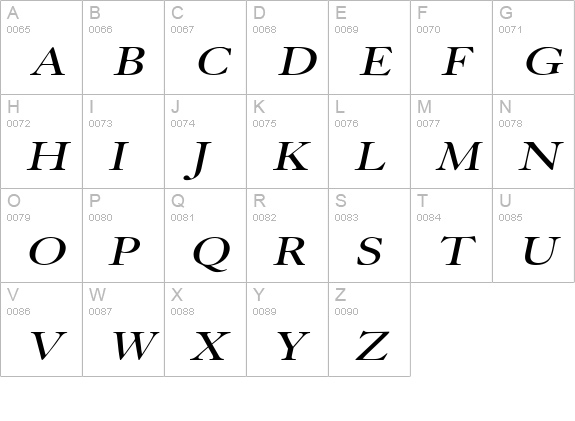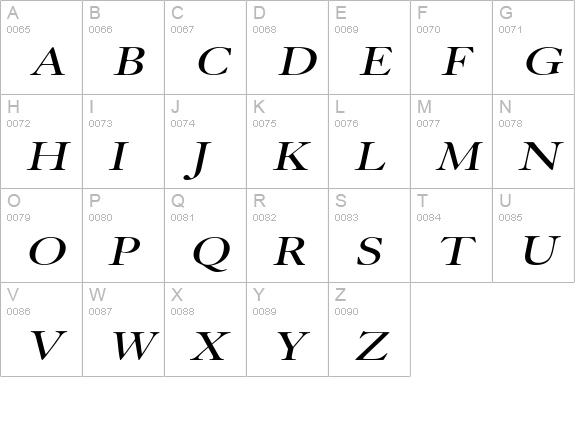
Bliss Wide Italic Font Details
Bliss Wide Italic is a distinctive, extended-width, italic variant in the Bliss typeface family \xE2\x80\x94 well suited to design and typography projects.
Bliss Wide Italic font is a stunning and elegant typeface that exudes a sense of sophistication and modernity. Its sleek and stylish design makes it perfect for a wide range of design projects, from branding to editorial design. The italic style adds a touch of flair and elegance to any text, making it stand out and capture attention. What makes Bliss Wide Italic font even more appealing is that it is available for free download at FontsMarket.com. This means that you can easily access and use this beautiful font in your projects without any cost. Whether you're a designer looking to add a touch of class to your work or a business owner wanting to elevate your branding, Bliss Wide Italic font is the perfect choice. Download it today and bring a touch of elegance to your designs!